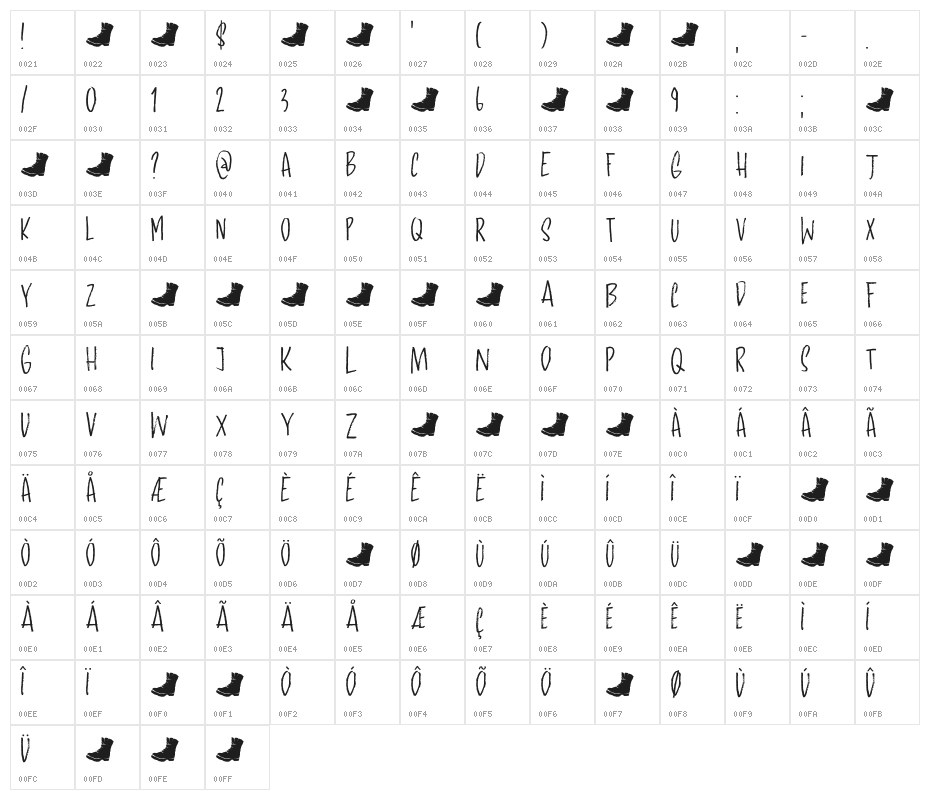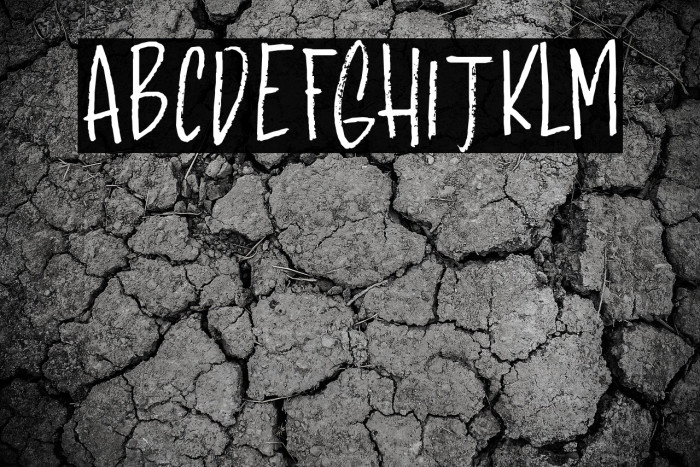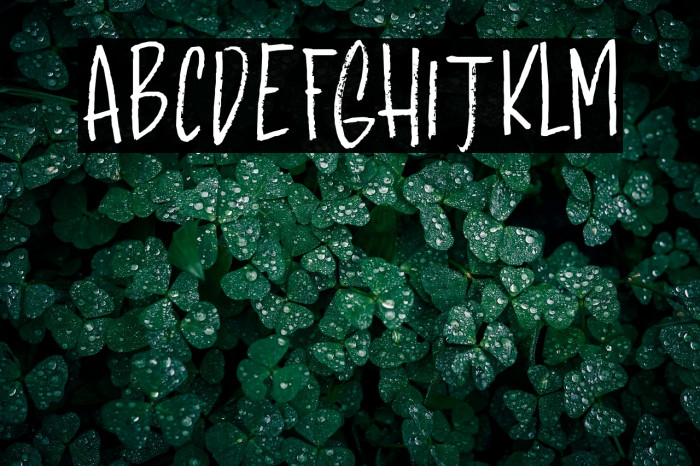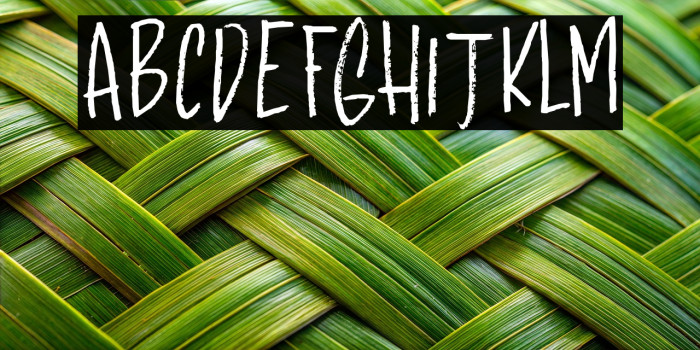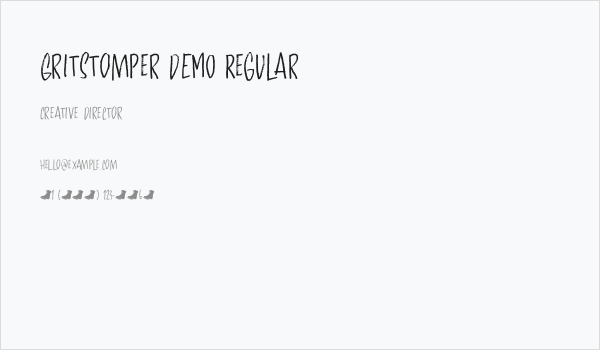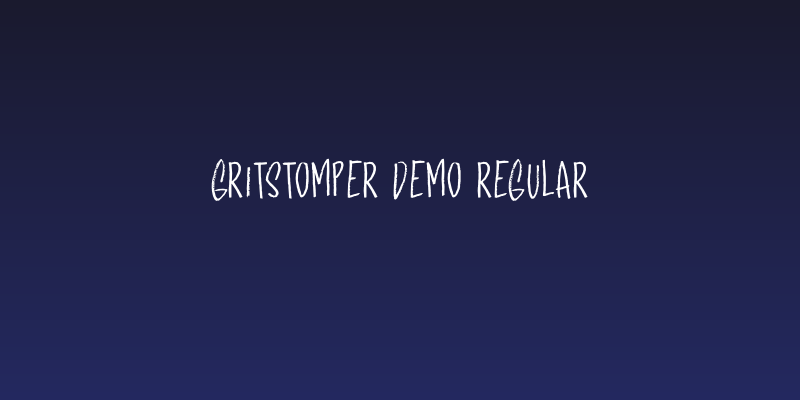
Gritstomper DEMO Regular Font
Gritstomper DEMO Regular Description
This font features a rugged, hand-drawn style with a distressed texture that gives it a gritty, urban feel. The letters are tall and narrow, with uneven strokes that add to the raw, edgy aesthetic. The uppercase and lowercase letters maintain a consistent style, while the numbers and special characters incorporate unique elements like boot shapes, enhancing the font's distinctive personality. This font is ideal for projects that require a bold, unconventional look.
| Overall Style | Urban, Edgy, Raw |
| Proposed Projects | Perfect for streetwear branding, music album covers, posters, and any project needing a bold, edgy look. |